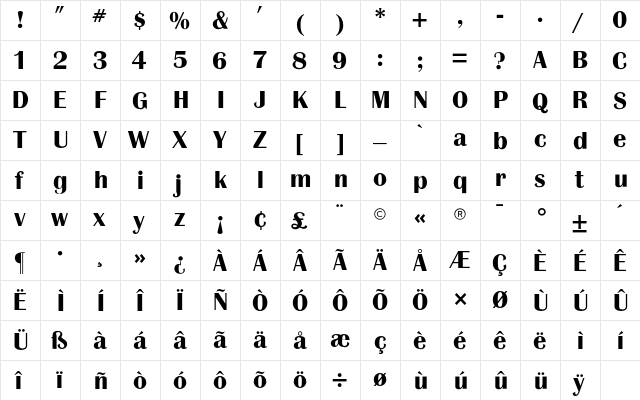
Britannia CG Bold Regular
Design Context for Britannia CG Bold Typeface
Britannia CG Bold offers clean, dependable letterforms without strong stylistic allegiance, making it a practical choice for designers who need flexibility. Its bold stroke weight gives it real presence on the page.